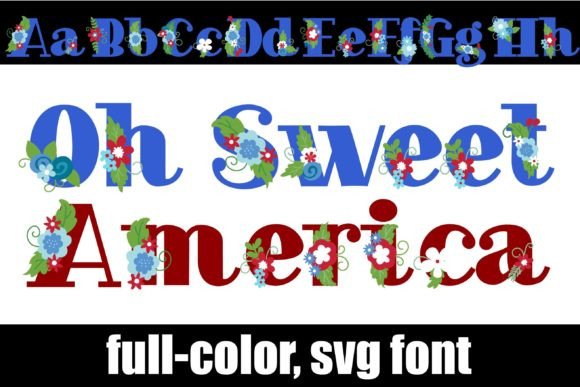
**Oh Sweet America Font: A Patriotic Fusion of Serif, Florals, and Red, White, and Blue Spirit**
Journey into the heart of Americana with Oh Sweet America Font, a breathtaking full-color serif font that captures the essence of red, white, and blue pride. This captivating creation by Illustration Ink is not just a font; it's a celebration of unity, a symphony of colors, and an artistic tribute to the spirit of the great United States of America.
**Red, White, and Blue Symphony:**
Oh Sweet America Font paints a picture of patriotism with its vibrant color palette. Each letter, meticulously crafted with a serif style, is adorned with red, white, and blue hues, evoking images of waving flags, blooming fireworks, and the boundless beauty of the American landscape.
**Whimsical Floral Accents:**
Delicate florals dance around the edges of each character, adding a touch of whimsy and charm to the font. These intricate details symbolize the diversity and vibrancy of the American spirit, a nation built on the dreams and aspirations of people from all walks of life.
**Serif Elegance:**
The serif letterforms in Oh Sweet America Font exude a sense of elegance and sophistication. With their graceful curves and distinct terminals, these letters lend a timeless appeal to your designs, making them perfect for projects that demand a touch of classic charm.
**Unlimited Creative Possibilities:**
**Experience the Full-Color Revolution:**
Oh Sweet America Font is an OpenType full-color (SVG) font, a revolutionary advancement in typography. Unlike traditional fonts that display as black, this font bursts into life with its full-color glory in compatible programs. Witness the magic as your designs come alive with the vibrant hues of the American flag, captivating your audience with every stroke.